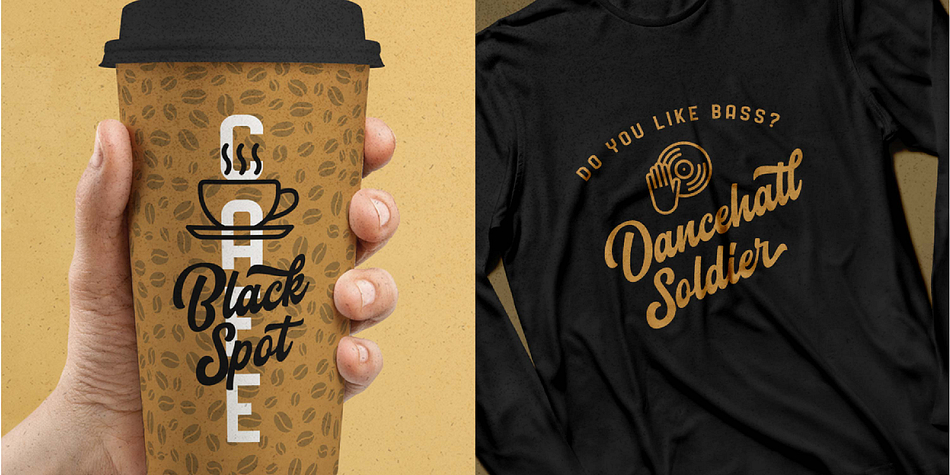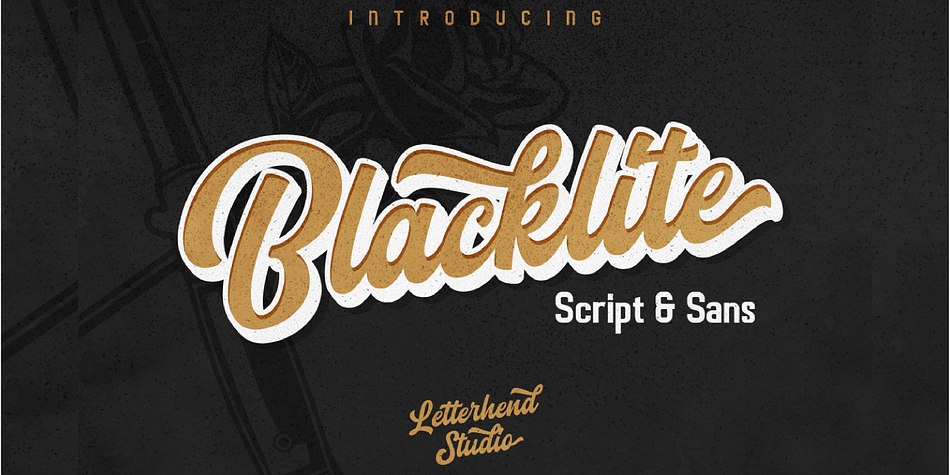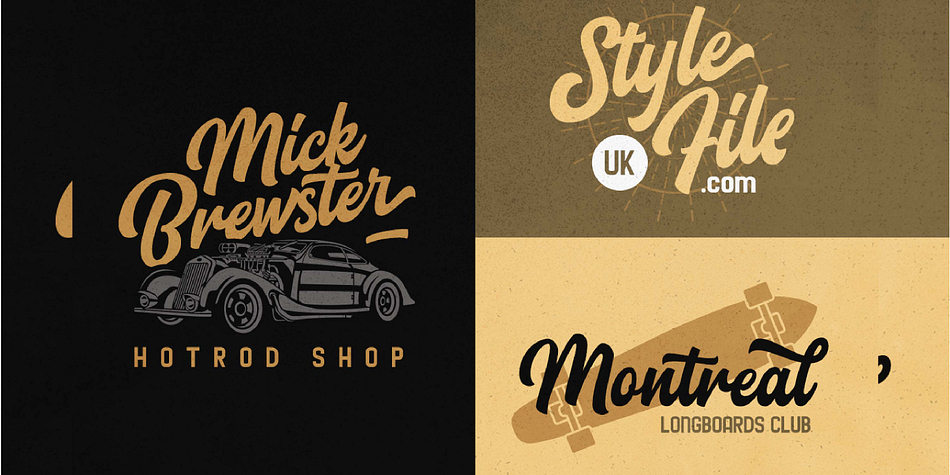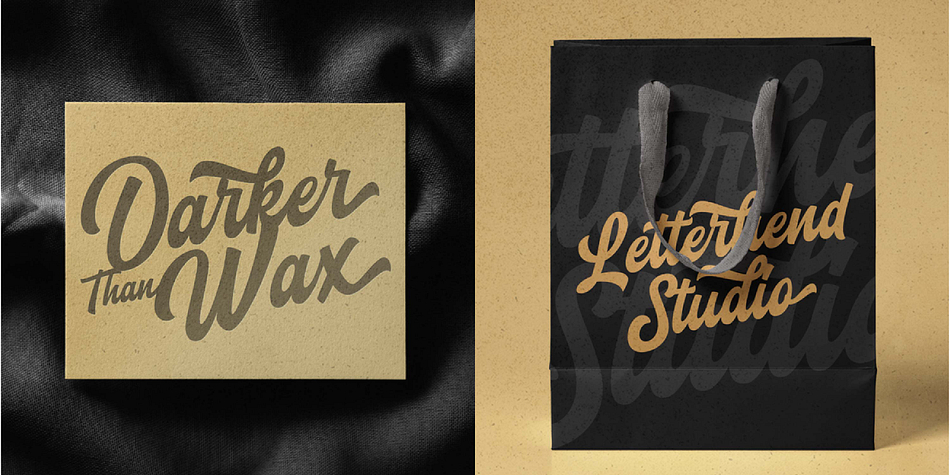
Designed by Hendry Juanda, Blacklite is a brush script, display sans and retro font family. This typeface has two styles and was published by Letterhend Studio.
Introducing, Blacklite! A bold script that will stands out from the crowd! Perfect to be used as logotype, badge and label! This has many opentype features like ligature, stylistic alternate, contextual alternate, swash, etc and support multi language.